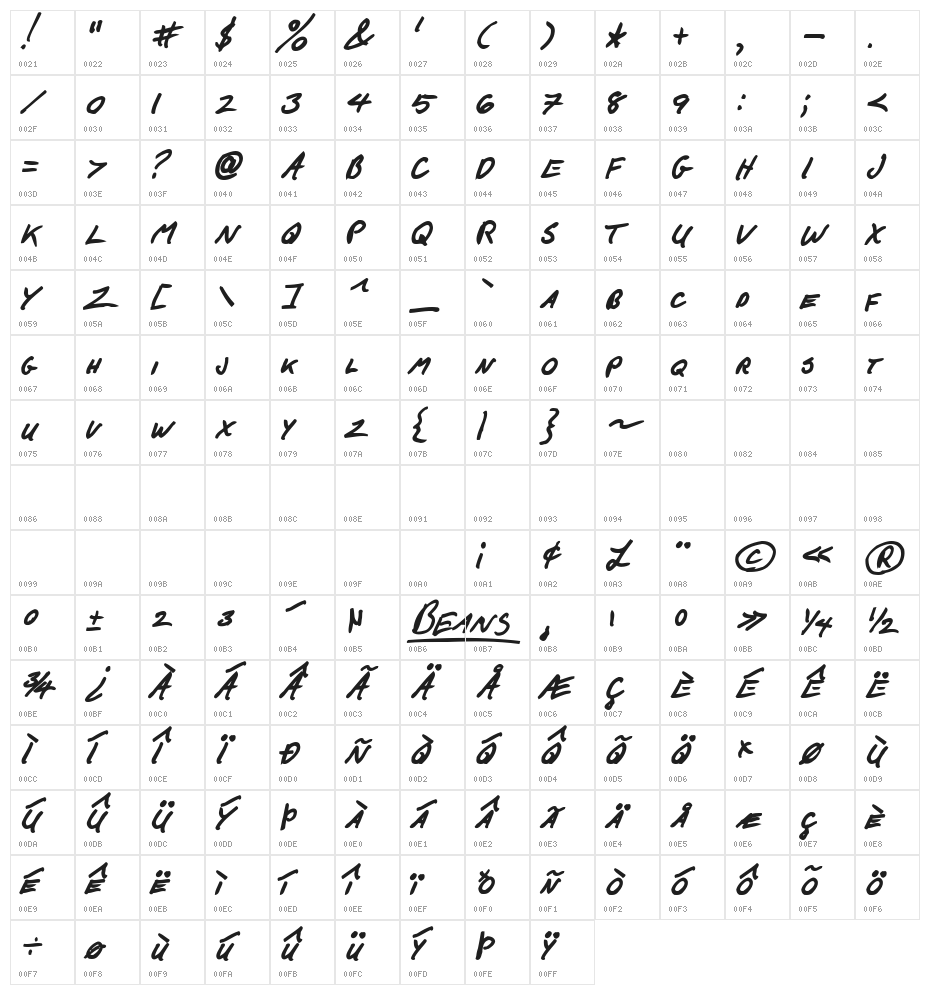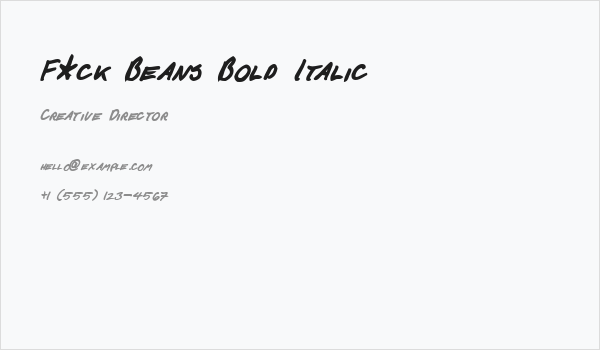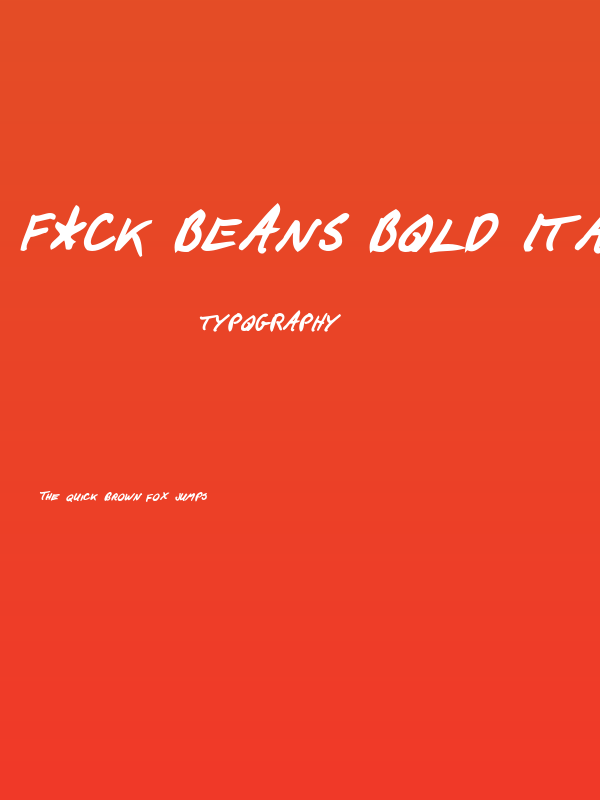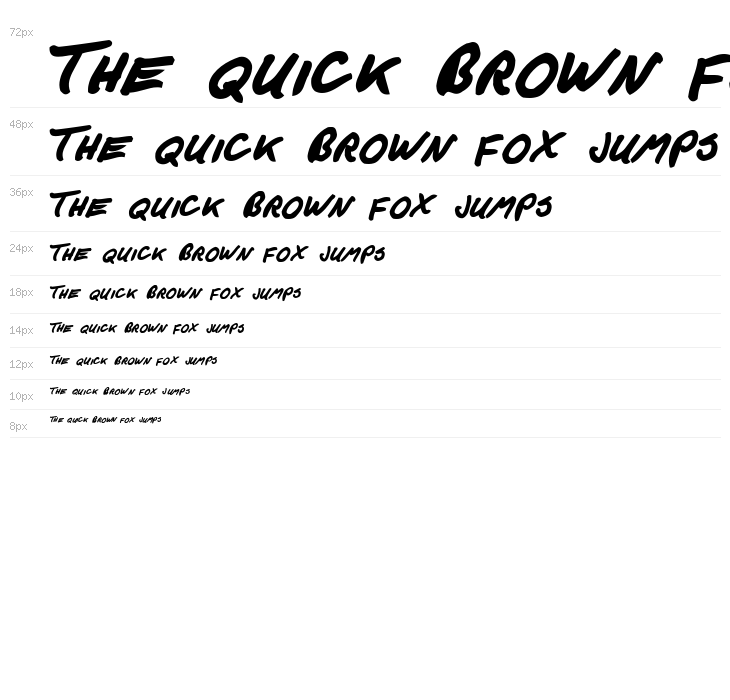
F*ck Beans Bold Italic Font
F*ck Beans Bold Italic Description
This font exhibits a bold and dynamic handwritten style, characterized by its fluid and energetic strokes. The letters are slightly slanted, giving an italicized appearance that enhances its expressive nature. The uppercase and lowercase letters maintain a consistent style, with a playful yet assertive presence. Numbers and special characters are designed to match the overall aesthetic, ensuring a cohesive look across different uses. The font's boldness makes it stand out, while the handwritten quality adds a personal touch, making it suitable for creative and informal applications.
| Proposed Projects | Ideal for creative projects such as posters, invitations, branding materials, and social media graphics where a personal and energetic touch is desired. |